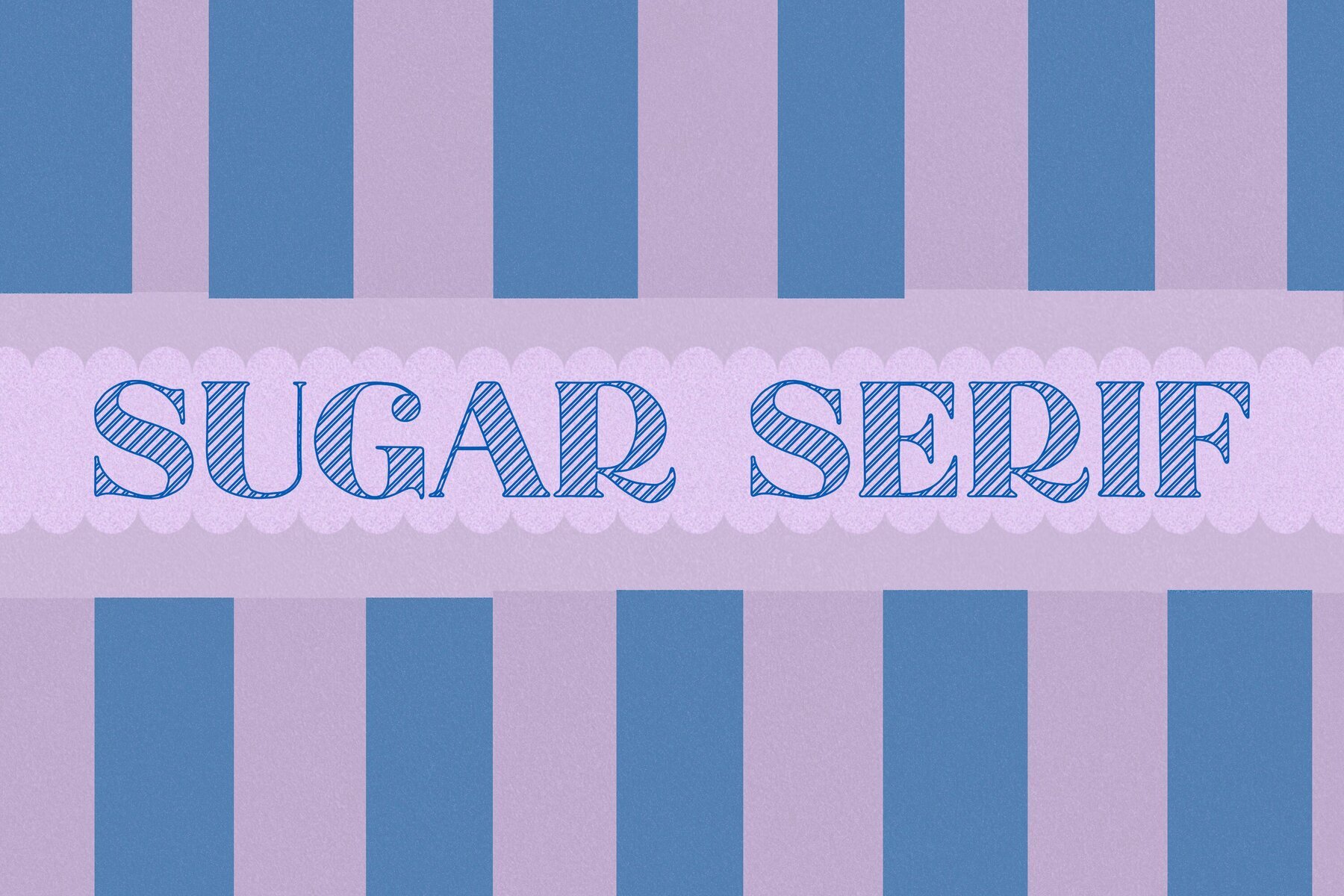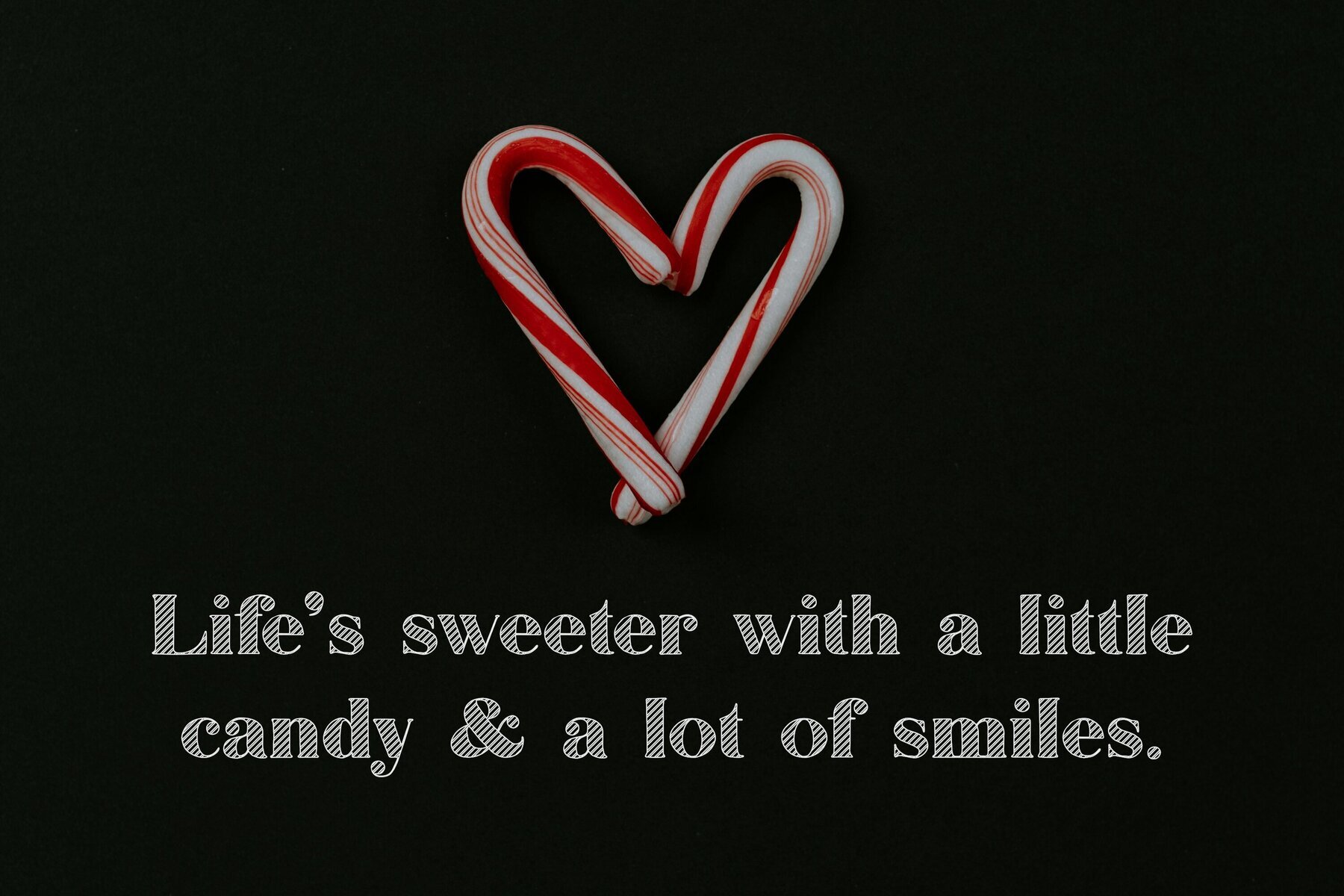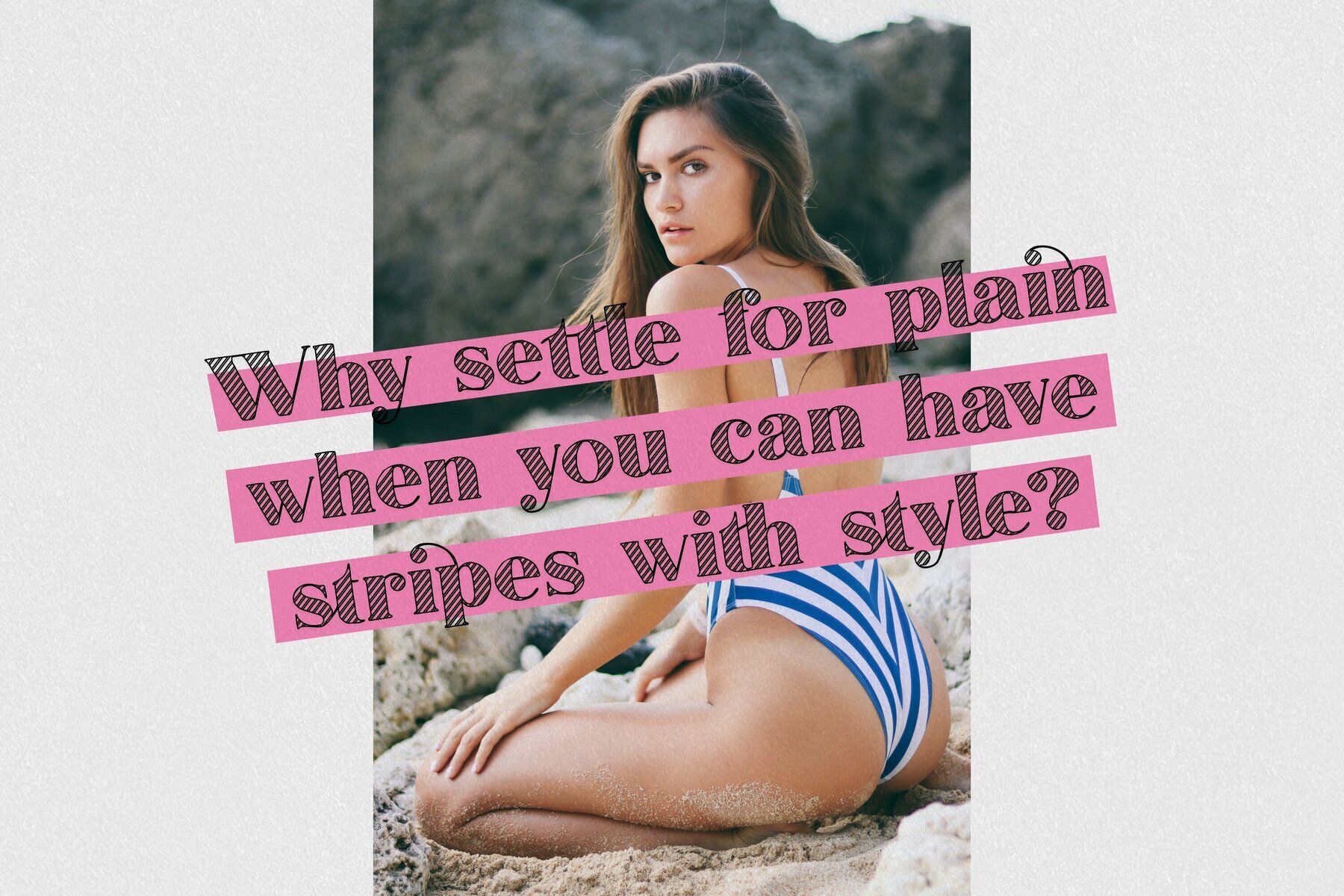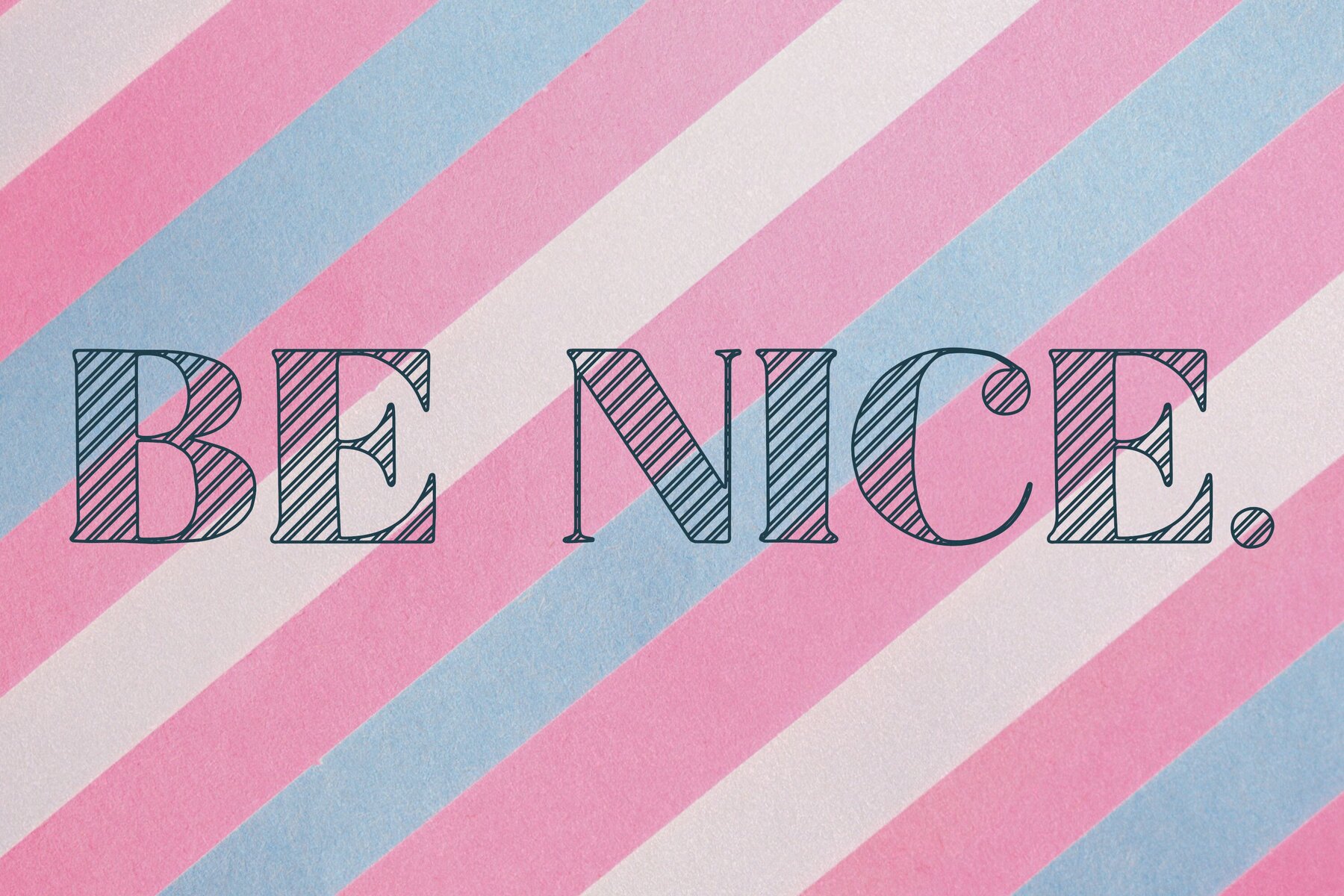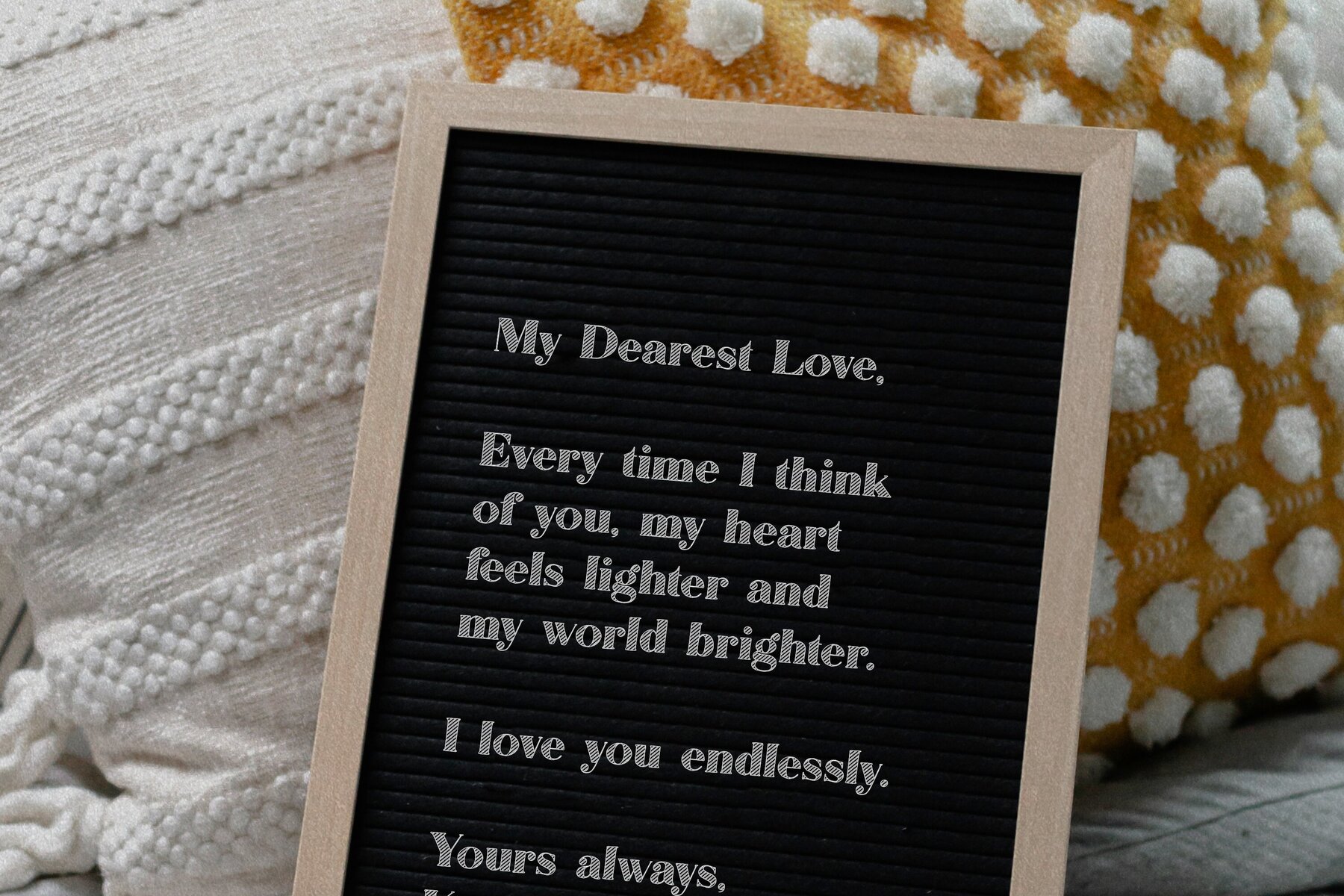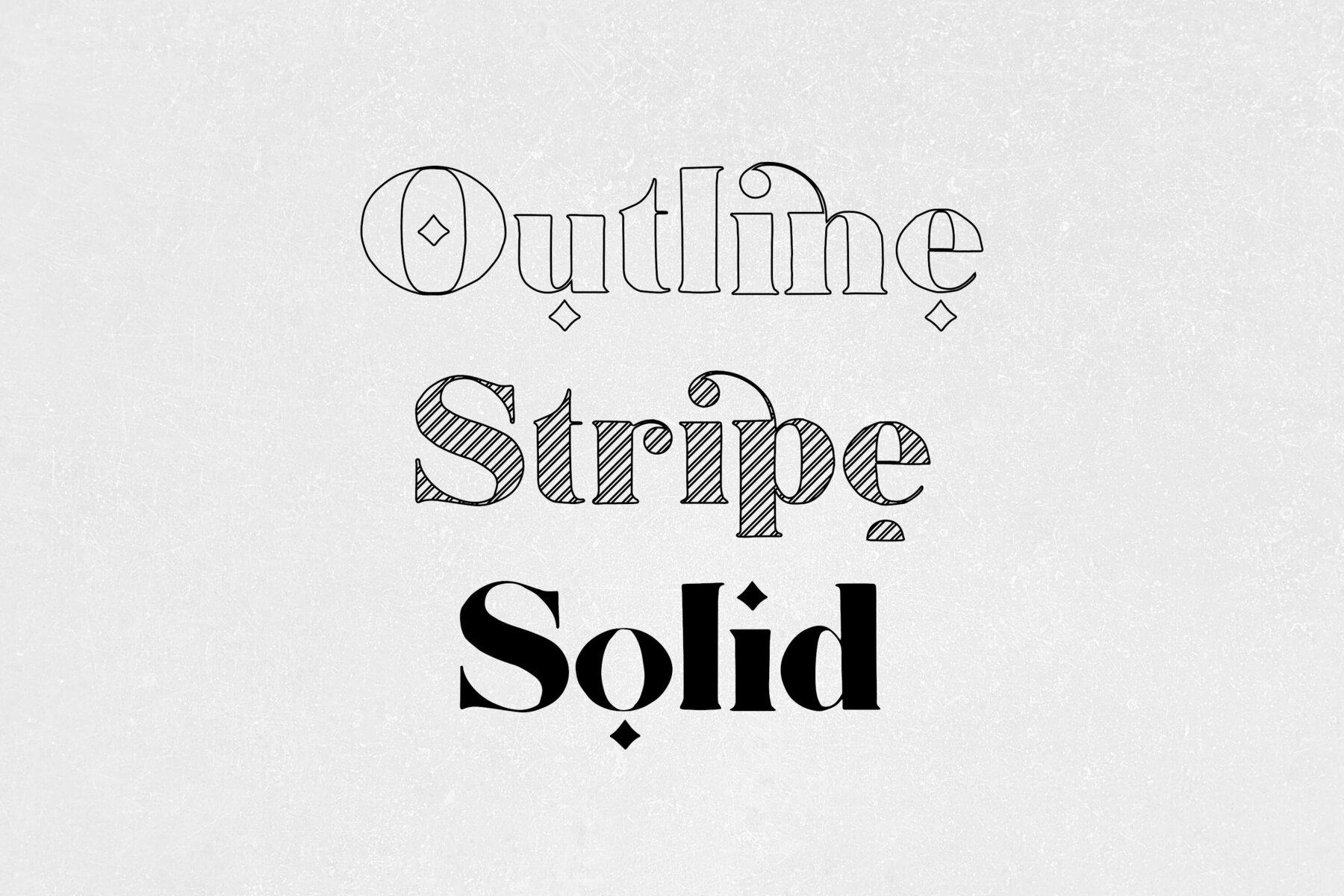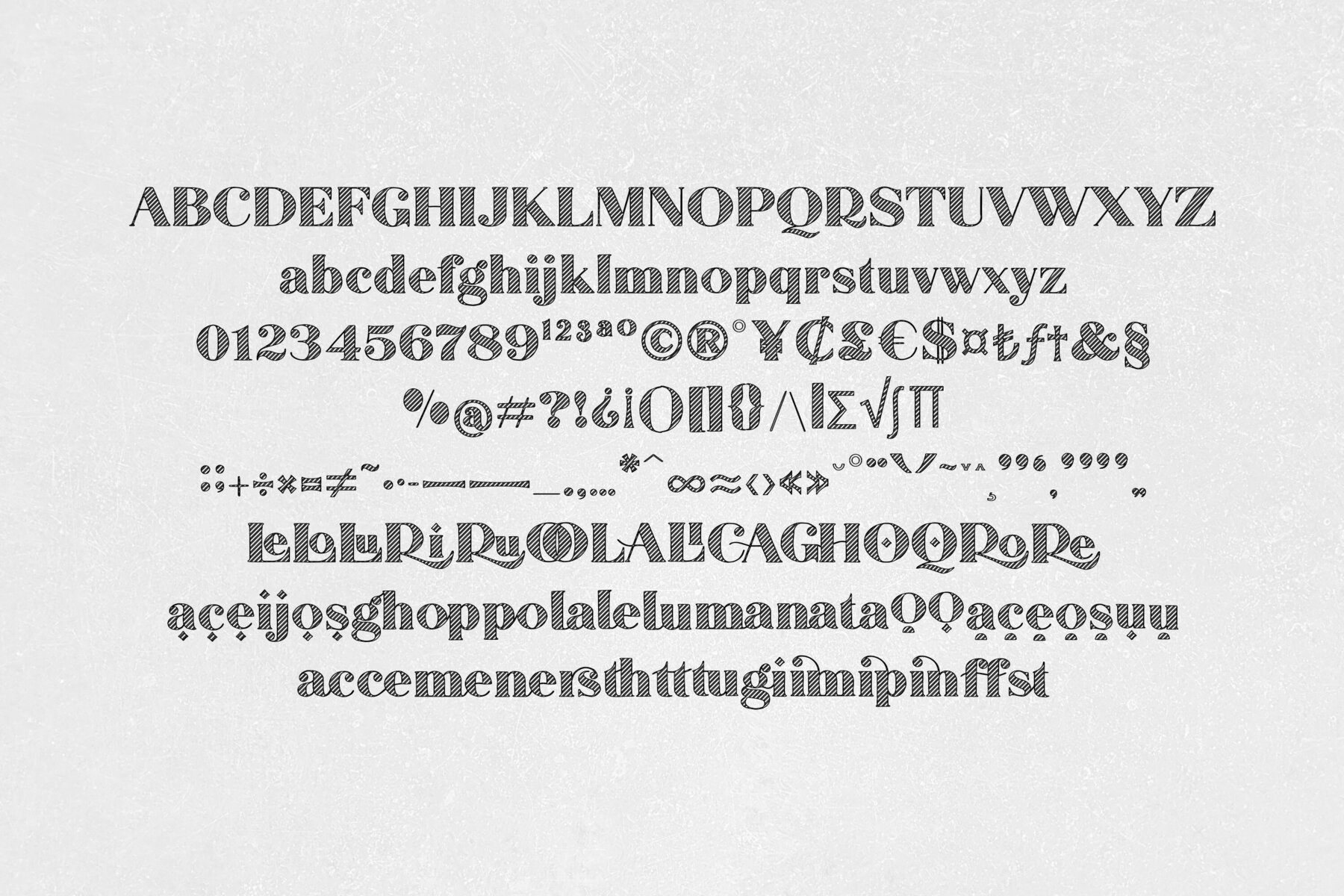
Sugar Serif Font
Sugar Serif is an elegantly crafted hand-drawn stripe font that exudes a sweet and stylish charm. With its classic details and delightful ligatures, this font is perfect for adding a touch of sophistication to any design project. The font set includes both uppercase and lowercase letters, as well as numbers and punctuations, offering versatility for various design needs.
Available in Stripe, Outline, and Solid versions, Sugar Serif provides a range of visual options to enhance your creative work. The inclusion of ligatures and alternates further expands the font's adaptability, allowing designers to create uniquely customized typography. Ideal for projects that require a refined and playful aesthetic, Sugar Serif is a fantastic choice for invitations, branding, and editorial designs.